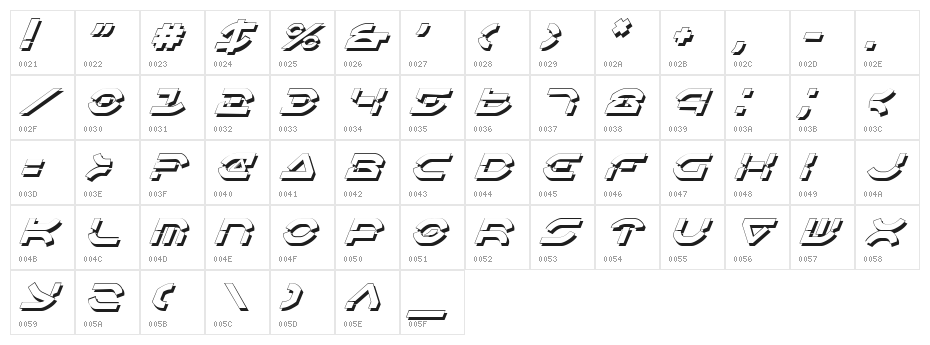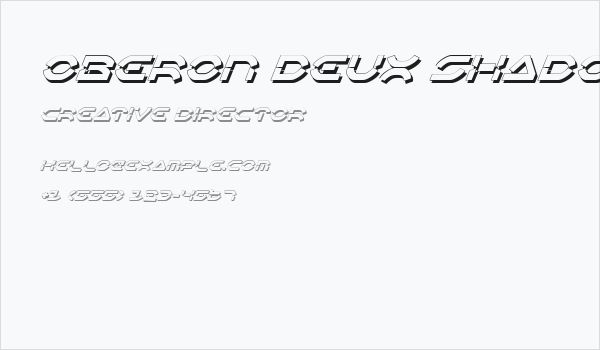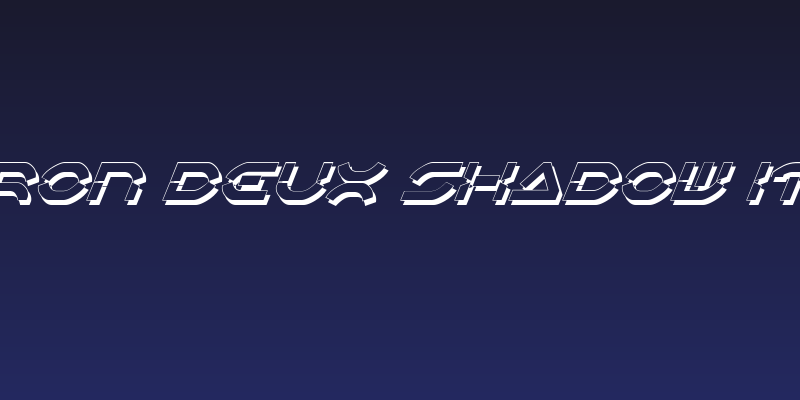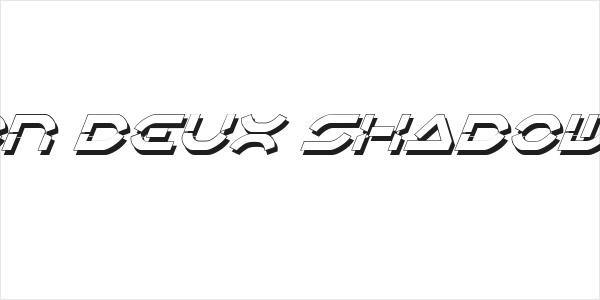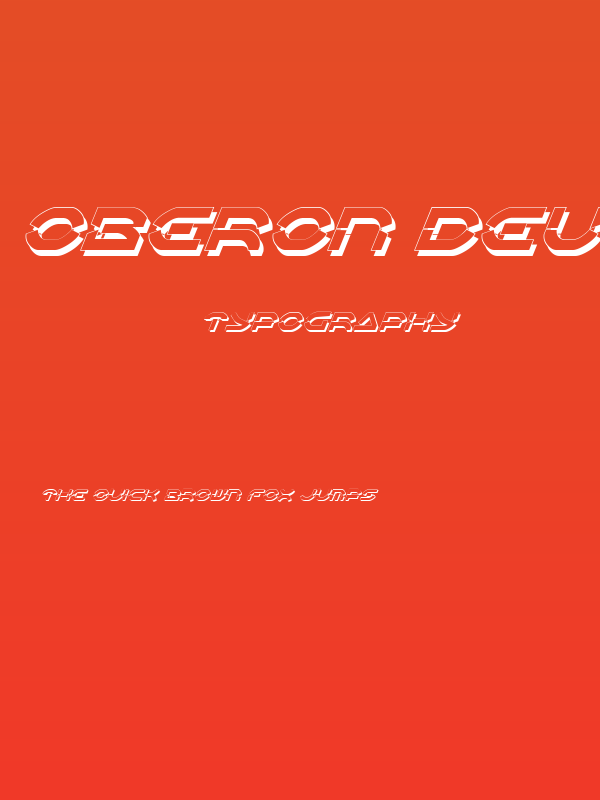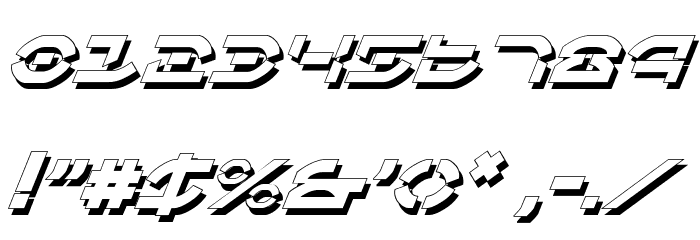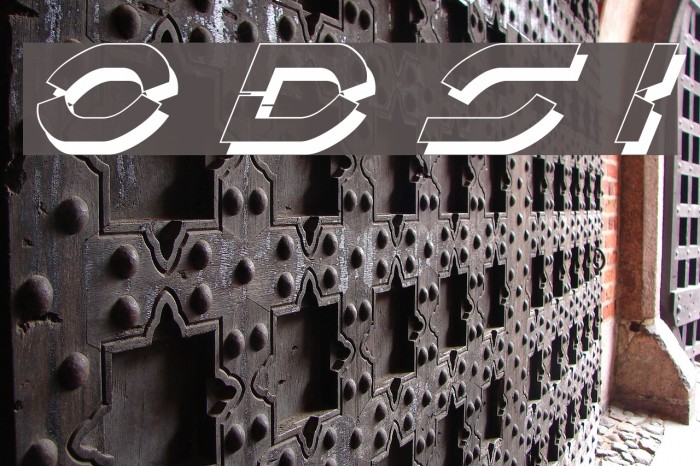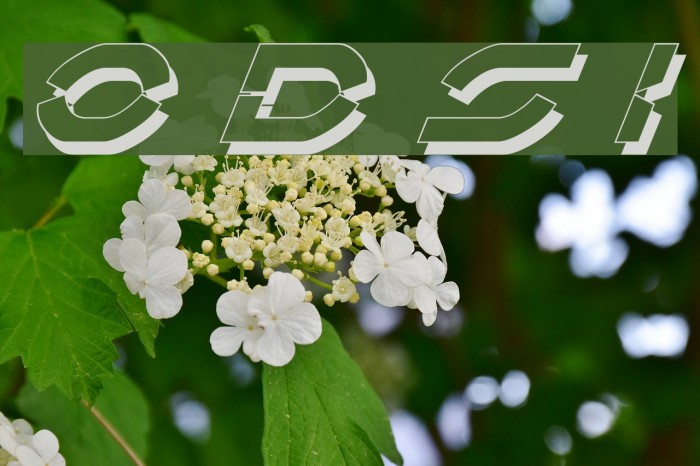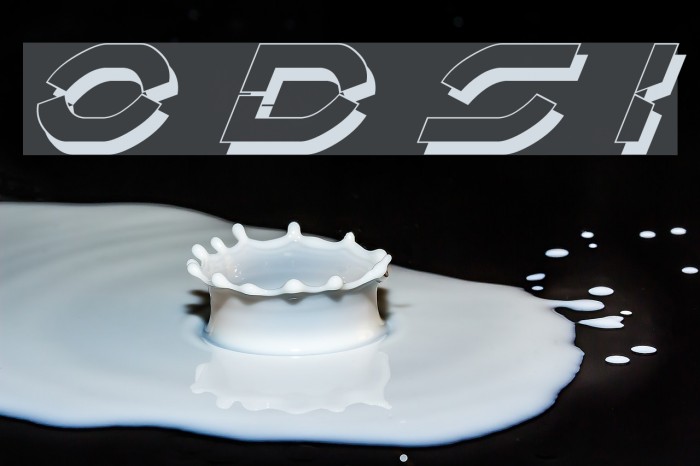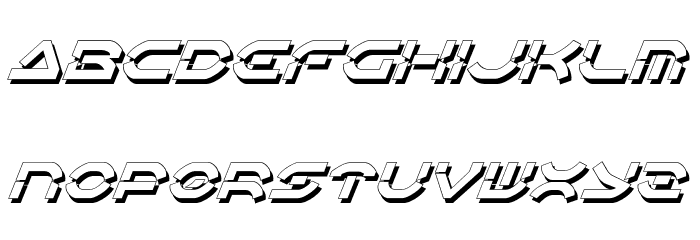
Oberon Deux Shadow Italic Font
Oberon Deux Shadow Italic Description
This font features a bold and dynamic design with a distinct shadow effect that gives it a three-dimensional appearance. The characters are italicized, adding a sense of motion and energy. The geometric shapes and sharp angles create a futuristic and modern look, making it stand out in any design. The uppercase and lowercase letters maintain a consistent style, with the shadow providing depth and contrast. The numerals and special characters are designed to match the overall aesthetic, ensuring a cohesive appearance across all text elements.
| Proposed Projects | Ideal for projects that require a futuristic or tech-inspired aesthetic, such as video game titles, sci-fi posters, or branding for tech companies. |